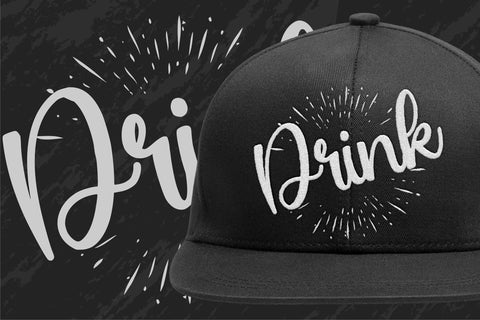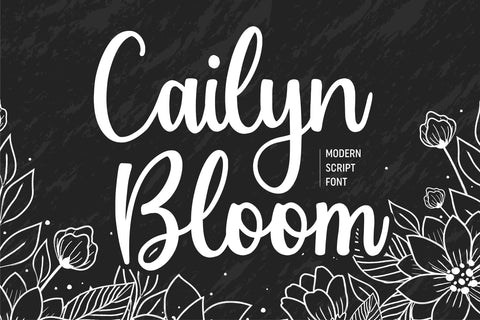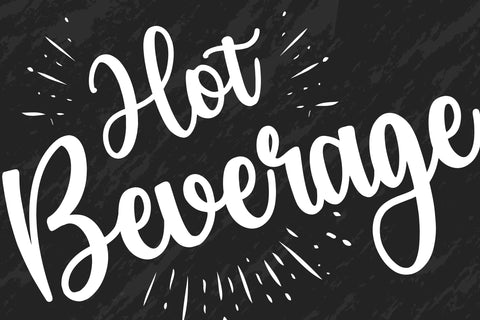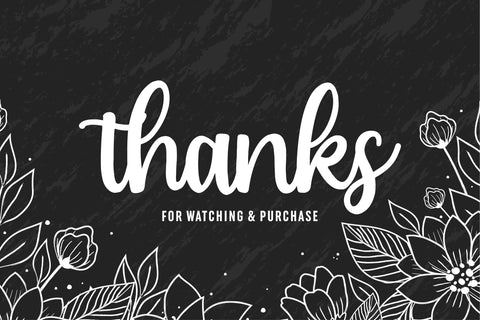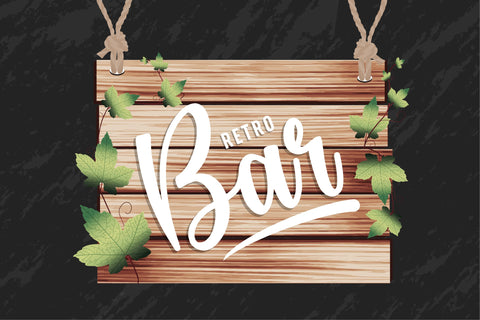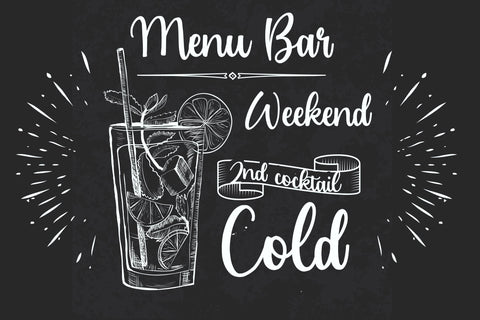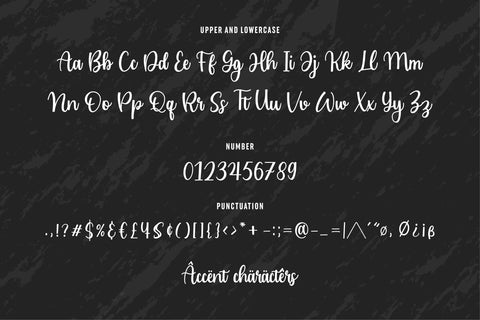
Cailyn Bloom modern script font
Proudly Present, Cailyn Bloom.
Cailyn Bloom is a modern script font.
Cailyn Bloom is perfect for product packaging, branding project, megazine, social media, wedding or just used to express words above the background.